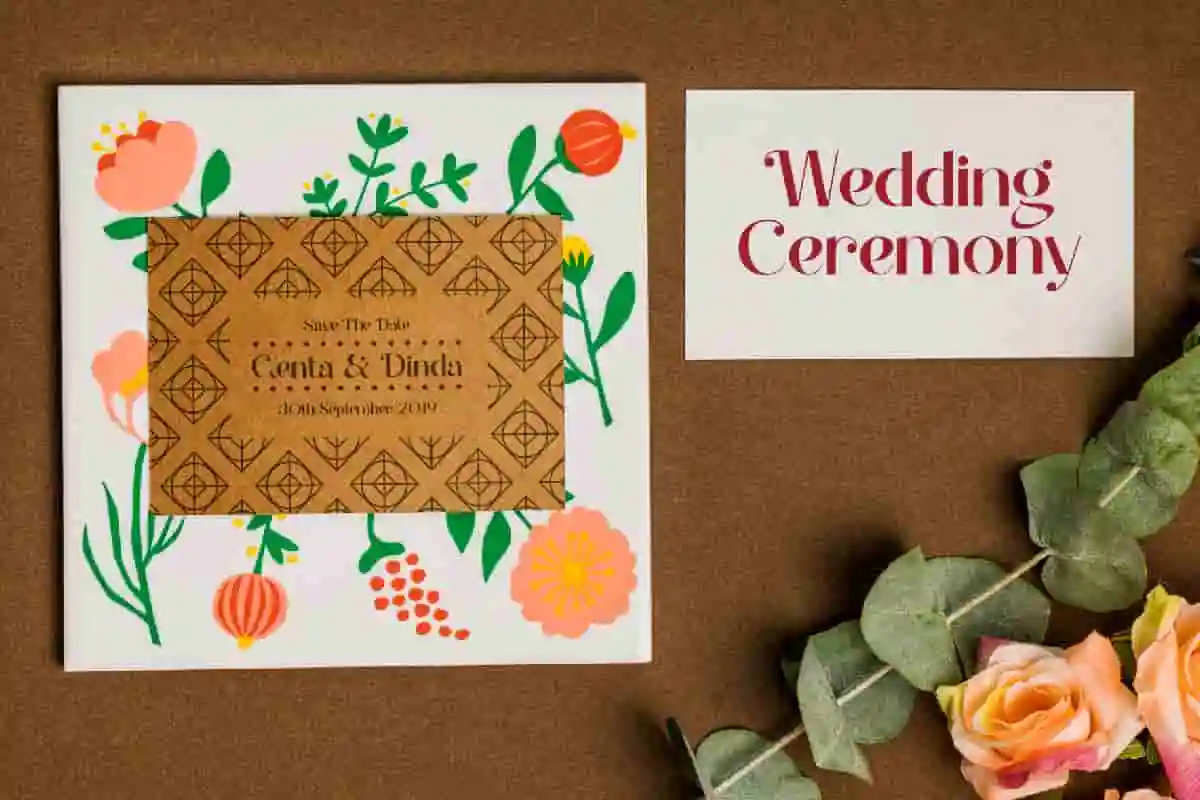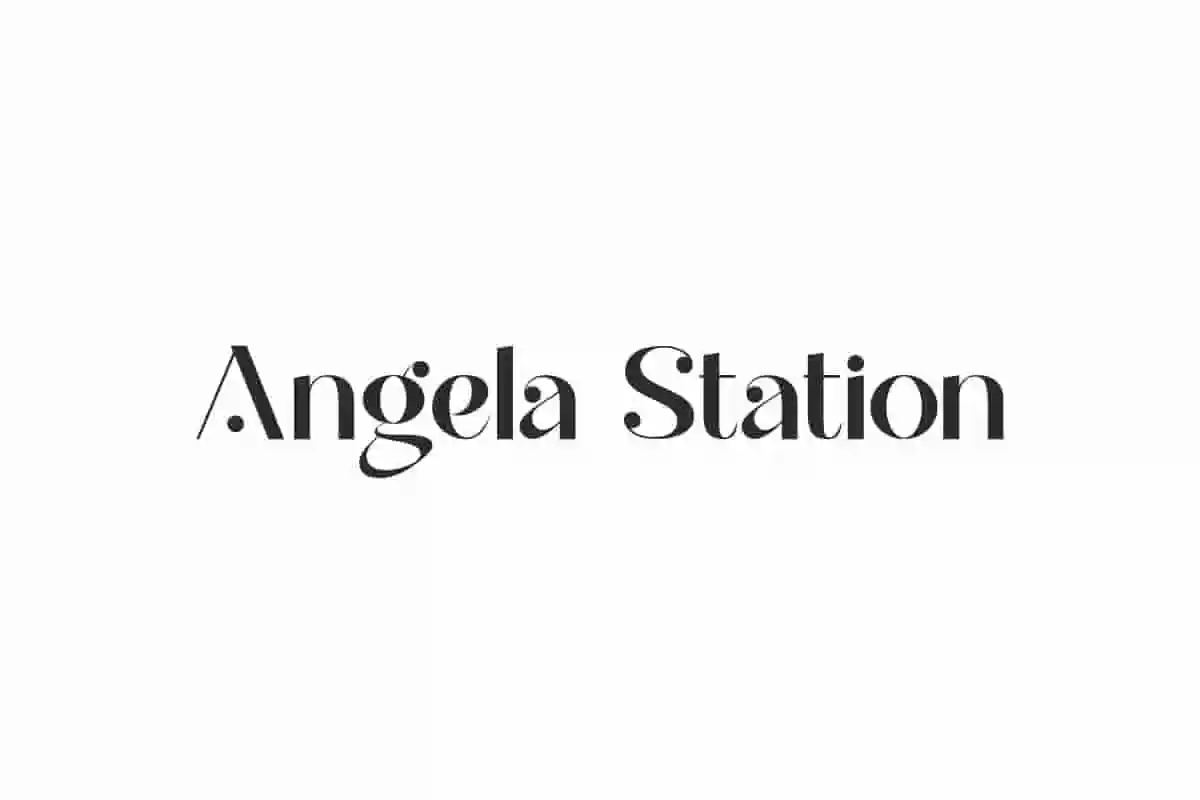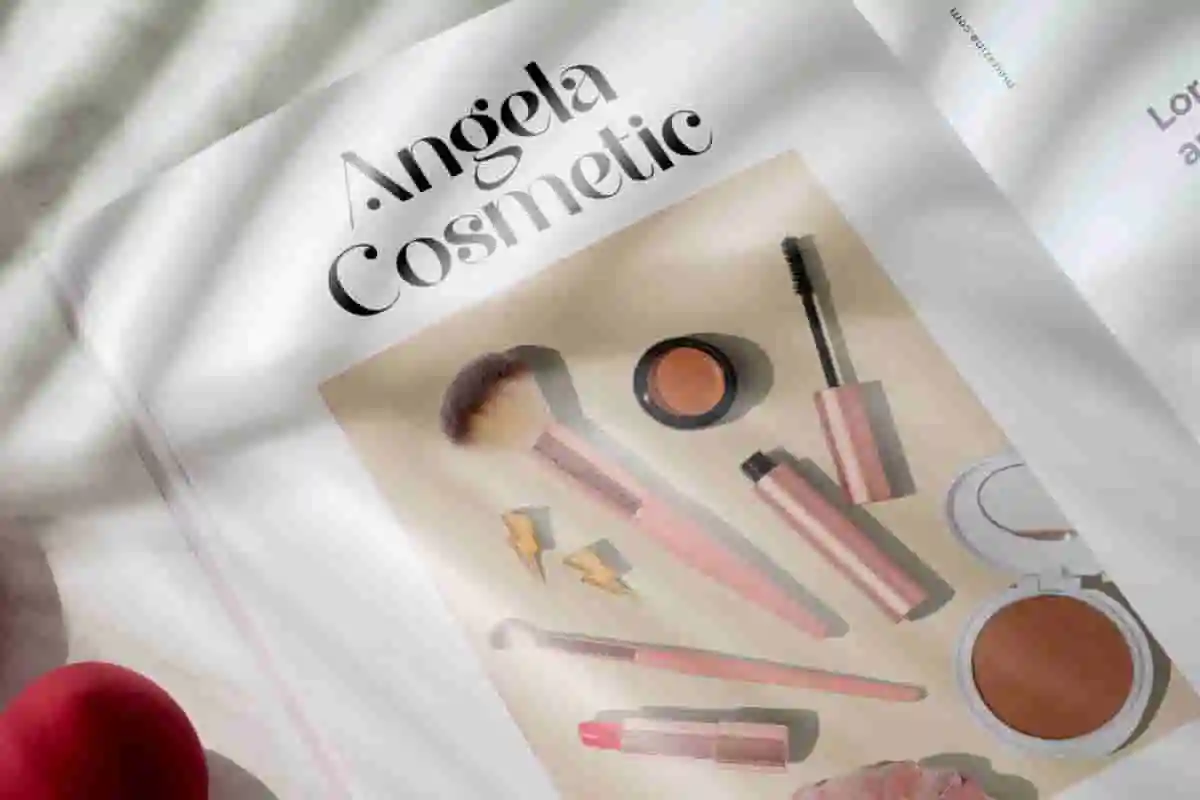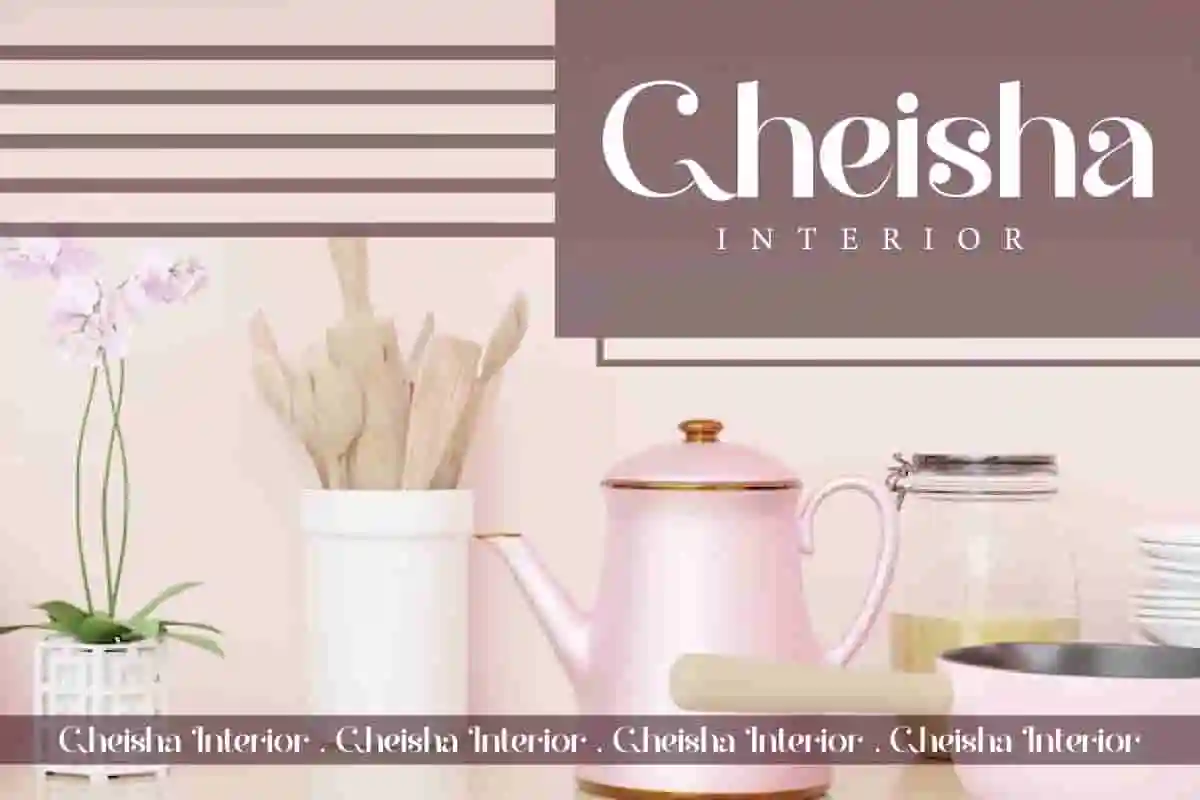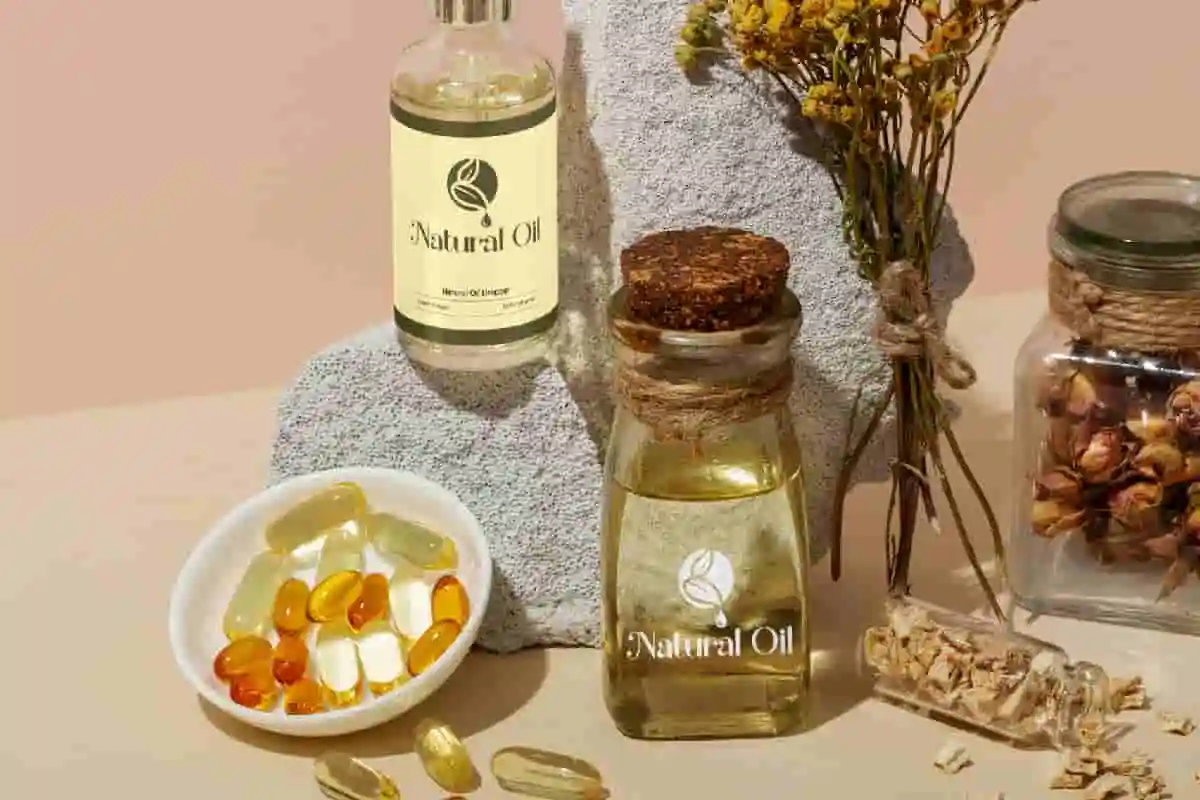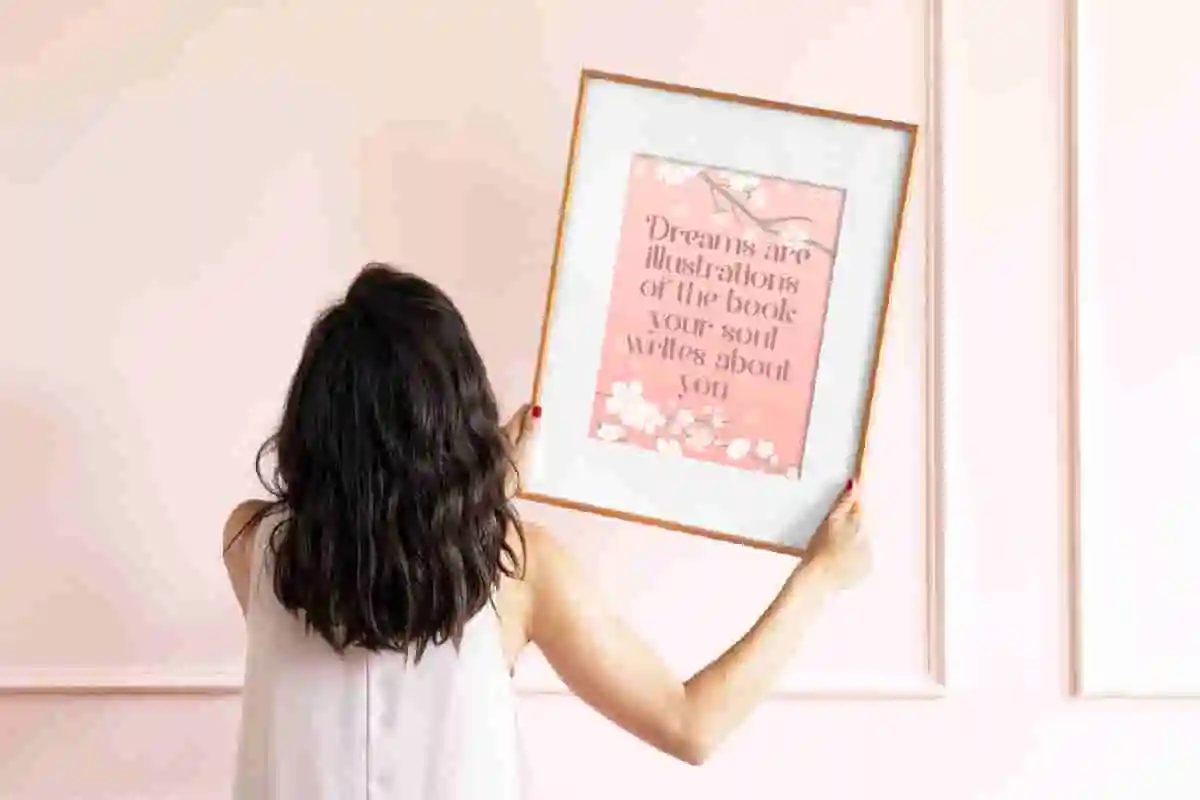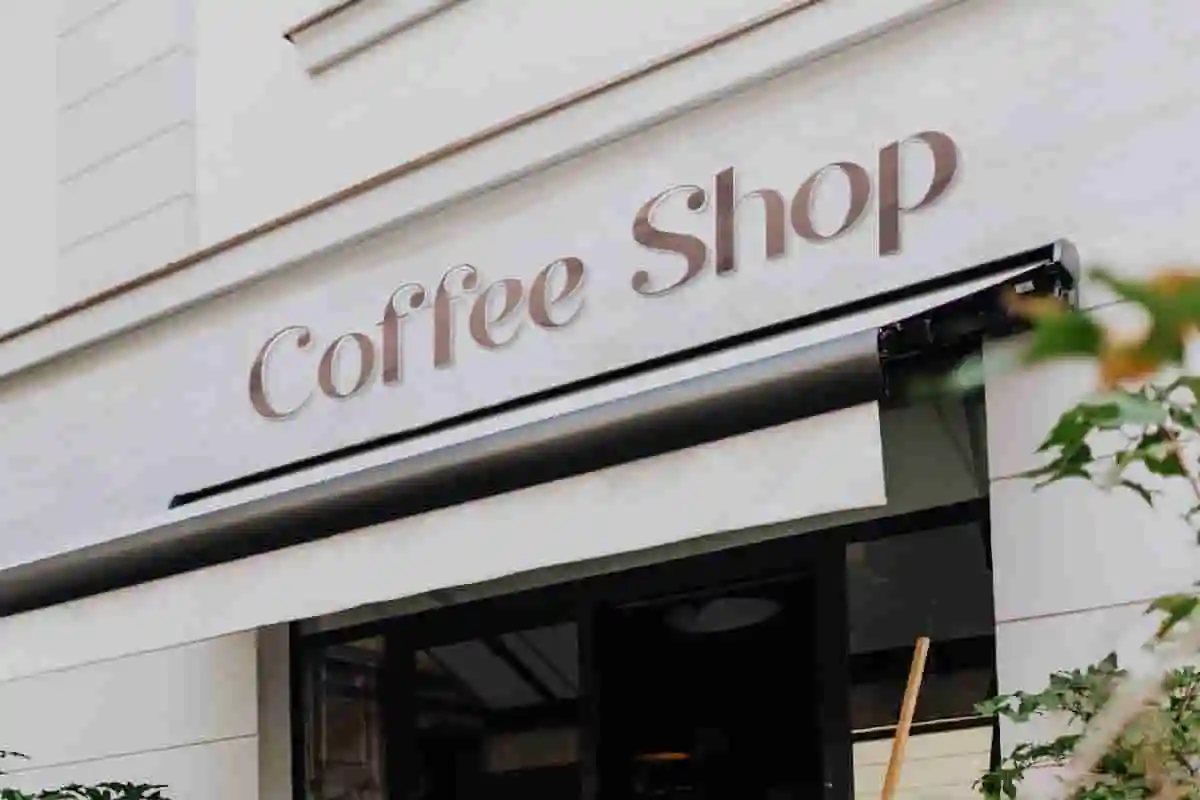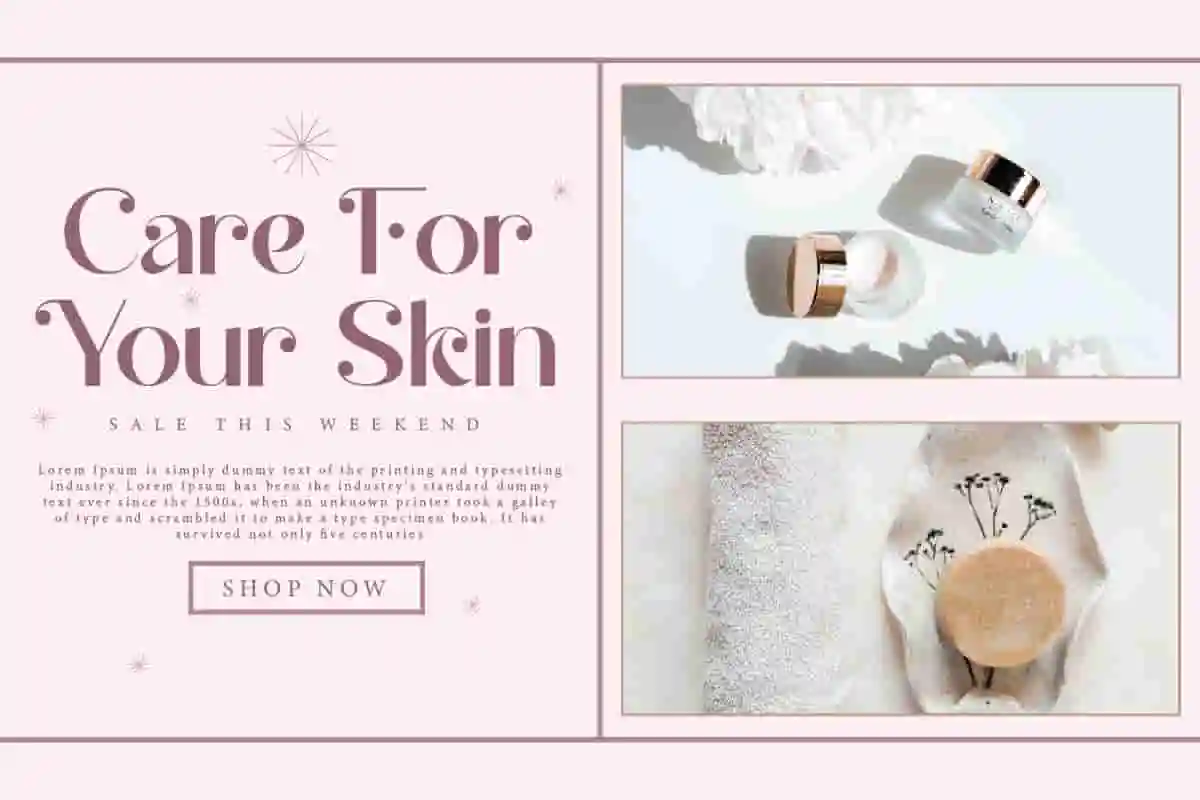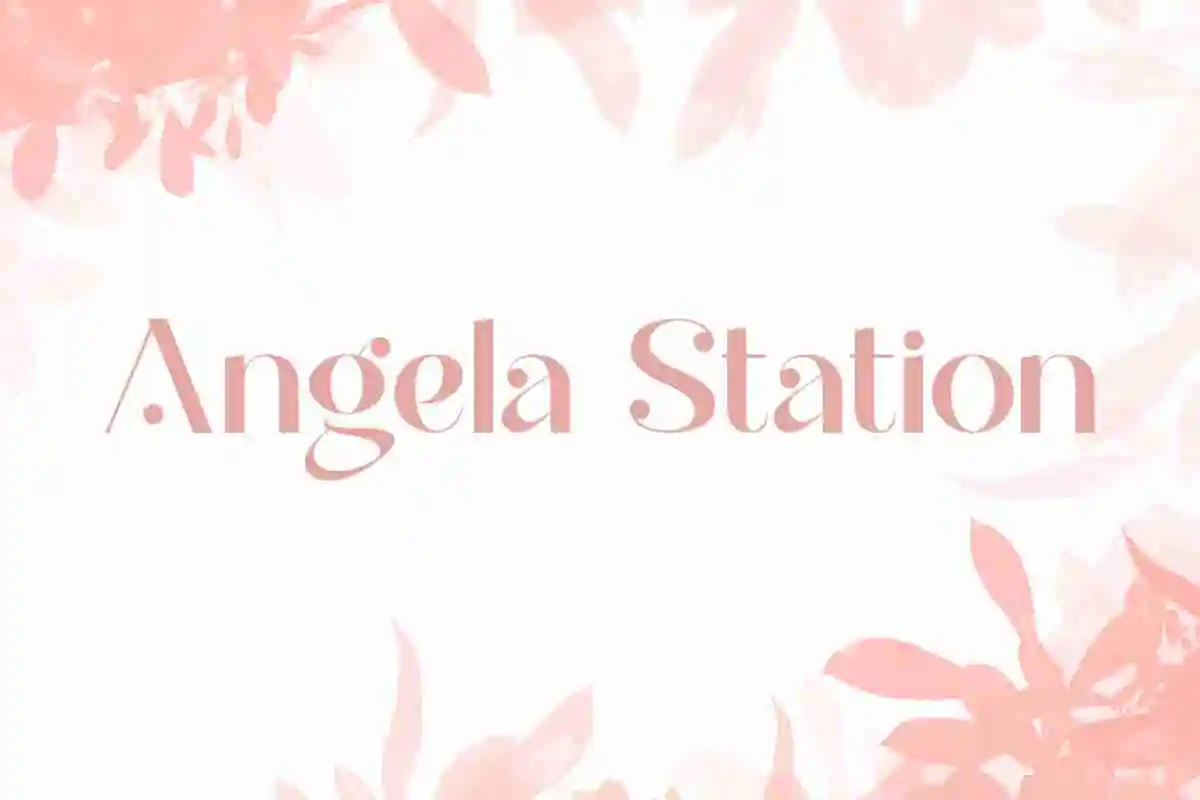
Angela Station Font is a gorgeous display font that we created specifically for your needs to add value to your brand.
Angela Station Font is a unique modern display font inspired by the luxurious sans serif style. It will be versatile to complement your business, such as café, cosmetic, design interior, event organizer, fashion designer, furniture, graphic design, handicraft, homeware, painter, photography, printing, publishing, restaurant, skincare, spa salon, and anything that requires a sleek look with a touch of elegance.
Angela Station Font includes full set of Uppercase and Lowercase Basic Characters, Number, Punctuation and Symbol. It features a unique set of letters in an elegant and minimalist style that will draw attention to a variety of designs, including apps, beautiful wedding invitations, billboard, branding, brochure, cover, envelope, flyer, header, label, logo design, packaging design, poster, quote, screen print, signage, sticker, thank you card, title, watermark, website, word mark logo, and more.